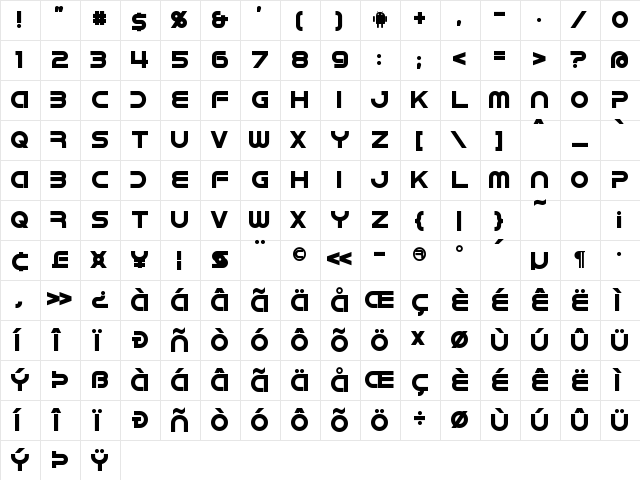
IDroid Bold
| Foundry | Pixel Sagas |
| Designer | Neale Davidson |
Design Context for IDroid Typeface
IDroid is a composed and adaptable typeface that performs quietly and consistently across a wide range of design contexts. Its bold stroke weight gives it real presence on the page.